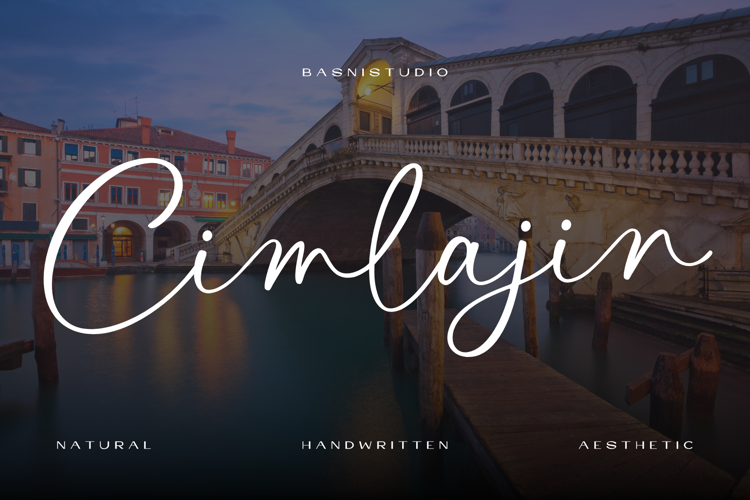
Cimlajin Font
Cimlajin, an Flawless handwritten font crafted with authentic Brush for Natural & Casual touch for everything from branding and social media to invitations and packaging.